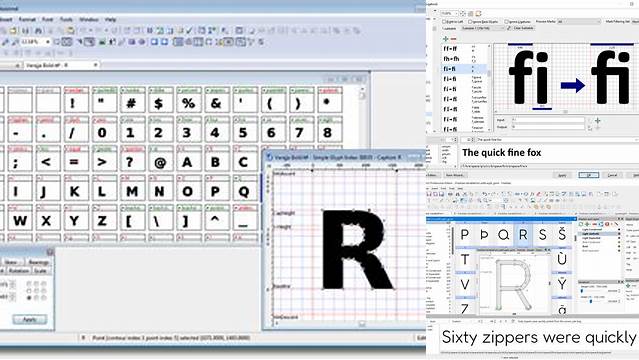
Free Font Editor Online: Design Your Own Fonts
Hey guys! Ever wanted to create your own unique font or tweak an existing one to perfection? You're in the right place! In this comprehensive guide, we'll dive deep into the world of font editors available online for free. We'll explore what these tools can do, why you might need them, and how to choose the best one for your creative needs. Whether you're a seasoned designer or just starting out, get ready to unleash your inner fontographer!
Why Use a Font Editor Online?
Font editors are powerful tools that allow you to design, modify, and customize fonts. You might be wondering, "Why would I need a font editor?" Well, the reasons are as diverse as the fonts you can create!
Unleash Your Creativity
Font editors provide a blank canvas for your imagination. You can design entirely new fonts from scratch, giving your projects a unique and personalized touch. Imagine crafting a typeface that perfectly embodies your brand's identity or creating a handwritten-style font that adds a personal touch to your invitations. The possibilities are endless!
When you create a new font from scratch, you have complete control over every detail. You can experiment with different letterforms, stroke weights, serifs, and more. This level of control allows you to create fonts that are truly unique and reflect your individual style. For example, you might decide to create a bold and modern sans-serif font for a tech startup or an elegant and flowing script font for a wedding invitation.
Beyond the aesthetics, font editors also let you adjust the technical aspects of a font, such as kerning (the spacing between letters) and hinting (the instructions that tell the computer how to render the font at different sizes). These adjustments are crucial for ensuring that your font looks good in a variety of contexts, from small body text to large headlines. The ability to fine-tune these details is what separates a professional-looking font from an amateurish one.
For those who love to tinker and experiment, font editors are a playground of creative possibilities. You can try out different ideas, iterate on your designs, and see your vision come to life. Whether you're a professional typographer or a hobbyist designer, the freedom to create your own fonts is an incredibly empowering experience.
Customize Existing Fonts
Sometimes, you might find a font that's almost perfect, but it needs a few tweaks to truly shine. Online font editors let you import existing fonts and modify them to your liking. This could involve adjusting the letter spacing, adding a unique flourish, or even completely redesigning certain characters.
Customizing existing fonts can be a great way to create a unique look and feel without starting from scratch. For example, you might take a classic serif font and add a slightly modern twist, or you might take a sans-serif font and make it more playful and informal. The possibilities are virtually limitless.
One common reason to customize a font is to match your brand's identity more closely. Perhaps you love the overall look of a particular font, but it's missing a certain something that represents your brand. With a font editor, you can adjust the font to perfectly align with your brand's personality and style. This might involve tweaking the letterforms, adjusting the spacing, or even adding custom glyphs or symbols.
Another reason to customize a font is to improve its readability. Certain fonts might look great in headlines or logos, but they might not be as legible in body text. By adjusting the letter spacing, stroke weights, and other parameters, you can make a font more readable and user-friendly. This is especially important for websites and other digital applications where readability is paramount.
Ultimately, customizing existing fonts allows you to create something truly unique that perfectly suits your needs. Whether you're looking to add a personal touch, match your brand, or improve readability, a font editor can help you achieve your goals.
Save Money
High-quality fonts can be expensive! Using a free online font editor allows you to create custom fonts without breaking the bank. This is especially helpful for small businesses and individuals on a tight budget.
Creating your own fonts with a free online font editor can save you a significant amount of money in the long run. Instead of purchasing multiple font licenses for different projects, you can design your own fonts that perfectly suit your needs. This can be especially beneficial for businesses that use custom fonts extensively in their branding and marketing materials.
Furthermore, the cost of commercial fonts can be prohibitive for many individuals and small businesses. High-quality fonts often come with a hefty price tag, and the licensing fees can quickly add up, especially if you need to use the font for multiple projects or across multiple platforms. Free online font editors provide a cost-effective alternative that allows you to access a wide range of font design capabilities without breaking the bank.
Another way that free online font editors can save you money is by allowing you to customize existing fonts. Instead of purchasing a new font that's similar to one you already have, you can use a font editor to tweak your existing font and achieve the desired look and feel. This can save you both time and money, as you won't have to search for and purchase a new font.
In addition to the direct cost savings, using a free online font editor can also save you money on design services. If you're working with a limited budget, you might not be able to afford a professional designer to create custom fonts for you. With a font editor, you can take matters into your own hands and create your own fonts without having to pay for professional design services.
Enhance Your Brand Identity
Your font is a crucial part of your brand's visual identity. A custom font can help you stand out from the competition and create a memorable impression. A free online font editor empowers you to create that unique visual signature.
When you create a custom font, you're crafting a unique visual element that represents your brand's personality and values. Your font becomes an integral part of your brand identity, conveying a message and creating a lasting impression on your audience. Just like your logo, colors, and overall aesthetic, your font contributes to the recognition and recall of your brand.
A well-designed custom font can communicate a wide range of qualities, such as professionalism, creativity, trustworthiness, or innovation. For example, a sleek and modern sans-serif font might convey a sense of cutting-edge technology and sophistication, while a classic serif font might evoke tradition, elegance, and authority. By carefully selecting and designing your font, you can shape the perception of your brand and connect with your target audience on a deeper level.
Using a free online font editor allows you to ensure that your font is perfectly aligned with your brand's overall identity. You have complete control over every aspect of the font's design, from the letterforms and spacing to the weights and styles. This level of customization enables you to create a font that not only looks great but also embodies the essence of your brand.
In a competitive marketplace, having a unique and recognizable brand identity is crucial for success. A custom font can help you differentiate yourself from your competitors and create a memorable brand experience for your customers. By investing in the design of your font, you're investing in the long-term strength and recognition of your brand.
Key Features to Look for in a Free Online Font Editor
Not all free online font editors are created equal. When choosing a tool, consider these key features:
User-Friendly Interface
A good font editor should be intuitive and easy to use, even for beginners. Look for a clear layout, helpful tools, and a straightforward workflow. You don't want to spend hours figuring out how to use the software – you want to start creating!
The interface of a font editor can make or break your experience. A cluttered, confusing interface can be overwhelming and make it difficult to focus on your design. On the other hand, a well-designed interface will guide you through the process and make it easy to access the tools and features you need.
When evaluating a font editor's interface, pay attention to the organization of the menus and panels. Are the tools logically grouped? Can you easily find the features you need? Is the layout clean and uncluttered? A well-organized interface will save you time and frustration, allowing you to work more efficiently and creatively.
Another important aspect of the interface is the visual feedback it provides. Can you easily see the changes you're making to your font? Does the editor provide previews of your font at different sizes and in different contexts? Visual feedback is essential for making informed design decisions and ensuring that your font looks good in a variety of applications.
For beginners, a user-friendly interface is especially crucial. Look for editors that offer tutorials, tooltips, and other helpful resources to guide you through the process. A good font editor should make it easy to get started, even if you have no prior experience with font design.
Drawing Tools
The best font editors offer a range of drawing tools, including pen, brush, and shape tools. These tools allow you to create precise and intricate letterforms. The more control you have over your drawing tools, the more expressive your fonts can be.
Drawing tools are the foundation of any font editor. They allow you to create the shapes and forms that make up your letters, numbers, and symbols. The quality and variety of the drawing tools available will directly impact the range of fonts you can create.
The pen tool is a fundamental drawing tool in any font editor. It allows you to create precise curves and lines by placing anchor points and adjusting the bezier handles. The pen tool is essential for creating smooth, flowing letterforms and for fine-tuning the details of your font.
Brush tools, on the other hand, provide a more freehand approach to drawing. They allow you to create strokes with varying widths and textures, adding a more organic and hand-drawn feel to your fonts. Brush tools are particularly useful for creating script fonts or adding unique flourishes to your designs.
Shape tools are another important feature to look for in a font editor. These tools allow you to quickly create basic shapes, such as circles, rectangles, and polygons. Shape tools can be used as building blocks for more complex letterforms or as decorative elements in your font.
In addition to these basic drawing tools, some font editors offer more advanced features, such as variable stroke widths, pressure sensitivity, and path operations. These features can give you even greater control over your designs and allow you to create truly unique fonts.
Kerning and Spacing Adjustments
Kerning and spacing are crucial for readability. A good font editor allows you to fine-tune the spacing between letters and adjust the kerning pairs to ensure a balanced and harmonious look. If the spacing is off, your font will look unprofessional.
Kerning and spacing are two of the most important aspects of typography. They determine how the letters in a font interact with each other and how the font looks as a whole. Proper kerning and spacing are essential for readability and visual appeal.
Spacing refers to the overall space between letters in a font. It's important to ensure that the spacing is consistent and that the letters are neither too crowded nor too far apart. The ideal spacing will vary depending on the font and the context in which it's used.
Kerning, on the other hand, refers to the adjustment of space between specific pairs of letters. Certain letter combinations, such as "AV" or "To", may require special kerning adjustments to ensure that they look balanced and visually pleasing. Without proper kerning, these letter combinations can appear awkward or uneven.
A good font editor will provide you with the tools you need to fine-tune both the overall spacing and the kerning of your font. This may include features such as manual kerning adjustments, automatic kerning algorithms, and spacing previews.
The ability to adjust kerning and spacing is particularly important when you're designing a custom font. You may need to make numerous adjustments to achieve the perfect balance and readability. A font editor that offers precise control over kerning and spacing will be invaluable in this process.
Import and Export Options
Make sure the font editor supports the file formats you need. Common font formats include TTF (TrueType Font) and OTF (OpenType Font). You should be able to import existing fonts for editing and export your finished fonts in a usable format.
Import and export options are crucial for any font editor. They determine how you can bring existing fonts into the editor and how you can save your finished fonts for use in other applications. The more file formats a font editor supports, the more versatile it will be.
TTF (TrueType Font) and OTF (OpenType Font) are the two most common font formats. TTF is an older format that is widely supported across different operating systems and applications. OTF is a more modern format that offers advanced features, such as support for ligatures and alternate glyphs.
A good font editor should support both TTF and OTF formats, allowing you to work with a wide range of fonts. It should also allow you to import fonts from various sources, such as your computer's font library or online font repositories.
The ability to export your finished fonts in a usable format is equally important. You'll want to be able to save your fonts in a format that can be easily installed and used in other applications, such as word processors, graphic design software, and web browsers.
In addition to TTF and OTF, some font editors may also support other font formats, such as SVG (Scalable Vector Graphics) or EOT (Embedded OpenType). Support for these formats can be useful if you need to use your fonts in specific contexts, such as on the web.
Preview and Testing Features
Before exporting your font, you'll want to see how it looks in different contexts. A good font editor will allow you to preview your font in various sizes and styles. It might also offer features for testing your font in sample text paragraphs.
Preview and testing features are essential for ensuring that your font looks good in a variety of situations. Before you finalize your font design, you'll want to see how it renders at different sizes, in different styles (such as bold and italic), and in different contexts (such as headlines and body text).
A good font editor will provide you with a range of preview options. This might include the ability to adjust the font size, weight, and style; to view your font against different background colors; and to preview your font in sample text paragraphs.
The ability to test your font in sample text is particularly important. This will allow you to see how the letters interact with each other and how the font reads in real-world scenarios. You can use sample text to identify any kerning or spacing issues and to make sure that your font is legible and visually appealing.
Some font editors may also offer more advanced testing features, such as the ability to generate font specimens or to create interactive previews that allow you to adjust the font's parameters in real time. These features can be invaluable for fine-tuning your font design and ensuring that it meets your specific needs.
Popular Free Online Font Editors
Okay, so now that we know what to look for, let's explore some popular free online font editors:
- Glyphr Studio: A powerful and feature-rich editor with a clean interface. Perfect for serious font design.
- BirdFont: A free, open-source editor that's great for creating monoline fonts.
- FontStruct: A unique editor that lets you build fonts from geometric shapes.
- Calligraphr: This tool lets you turn your handwriting into a font!
Tips for Designing Great Fonts
Creating a great font takes time and practice, but here are a few tips to get you started:
- Start with a concept: What kind of mood or style do you want your font to convey?
- Sketch your letters: Before diving into the editor, sketch your letterforms on paper. This helps you explore ideas and refine your design.
- Pay attention to consistency: Make sure your letterforms are consistent in terms of weight, style, and proportions.
- Test your font: Preview your font in different sizes and contexts to ensure readability.
- Get feedback: Share your font with others and ask for their opinions.
Font Editor Free Online: The Takeaway
Free online font editors are an amazing resource for anyone who wants to create custom fonts. Whether you're a designer, a business owner, or just a creative individual, these tools can help you express your unique style and enhance your projects. So, go ahead and experiment – unleash your inner fontographer and create something amazing!